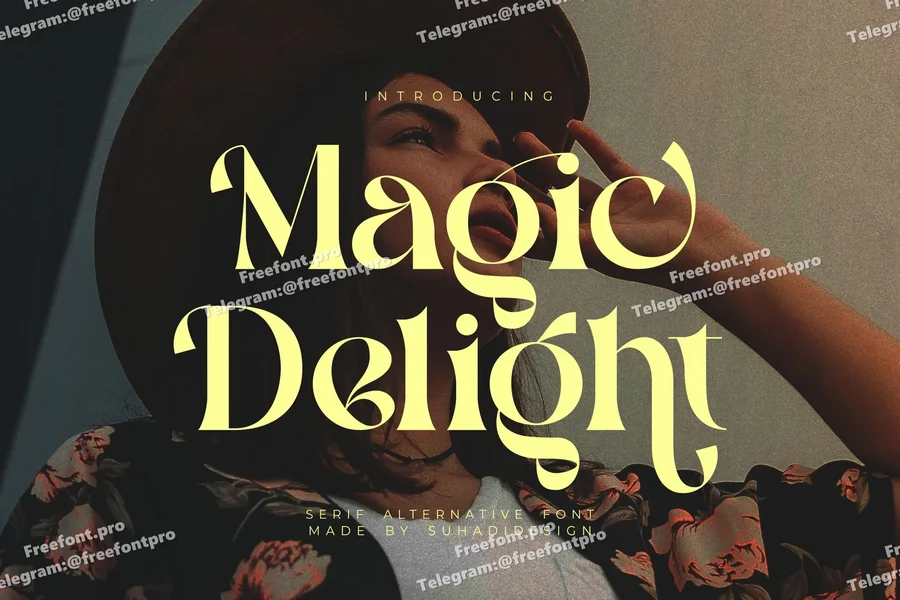
Magic Delight – Alternative Serif Font
Hi ladies and gentlemen! The latest stylish modern font has arrived, and it’s being sought after by many women and men. It’s the Magic Delight font. Magic Delight is a popular alternative serif font. With its unique style and ligatures, this font has become a market favorite. We’ve kept this font looking elegant, classy, and stylish. Magic Delight is a great choice for magazines, designs, books, publications, branding, brand names, business cards, social media, classy designs, newspapers, branding, beauty, and other projects. Magic Delight is here to elevate the quality of your designs.